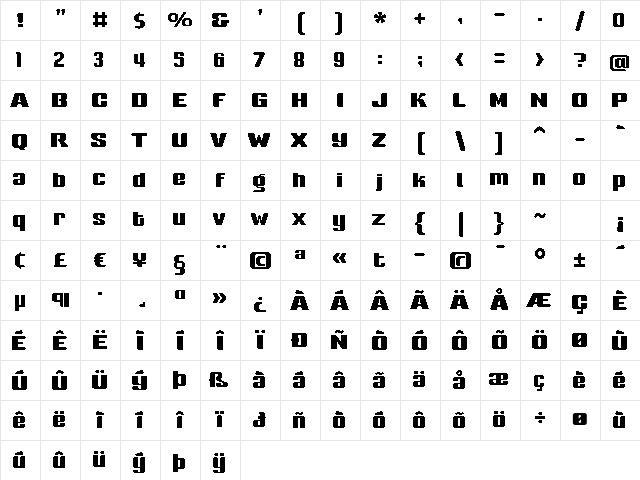
Sneakers Pro Medium
Foundry: Neil Summerour/Positype
Designer: Neil Summerour/Positype
Sneakers Pro Family
Design Context for Sneakers Pro
Sneakers Pro is a composed and adaptable typeface that performs quietly and consistently across a wide range of design contexts.